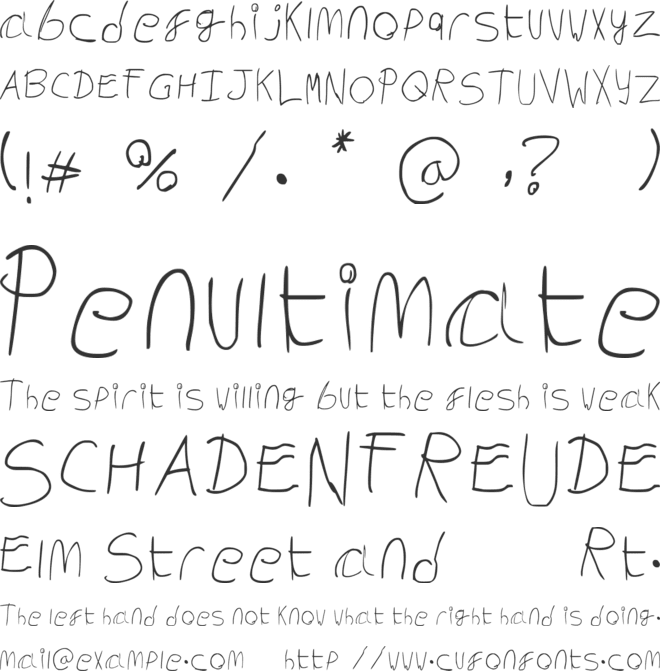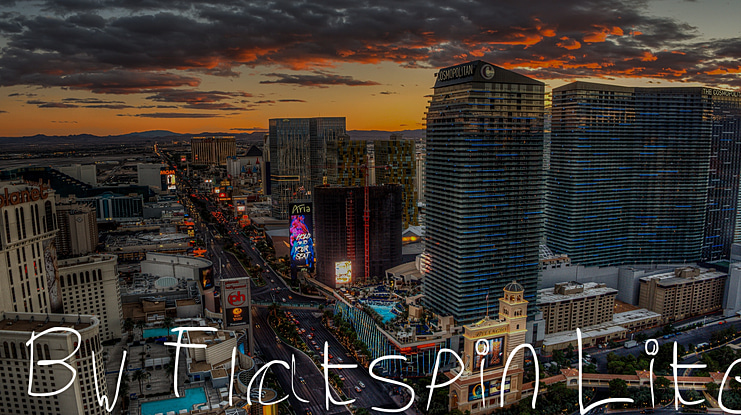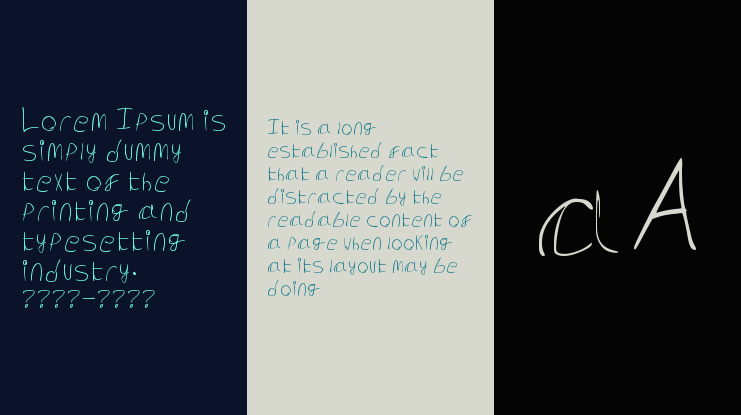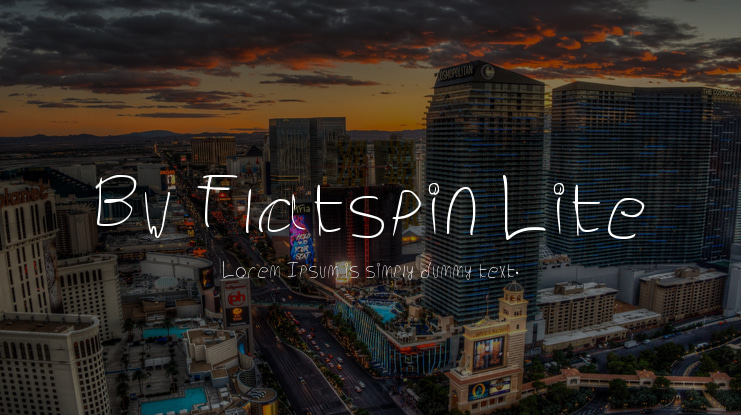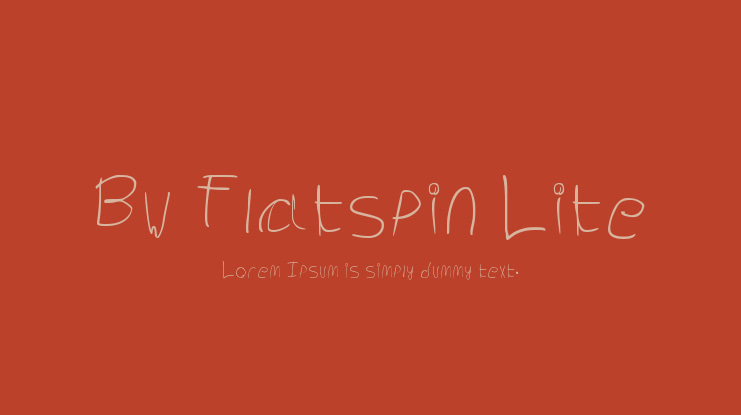
Bw Flatspin Lite Font Family
This is a font I made using my own handwriting a long while back, It was only ever meant to be used by me but I released it anyways.